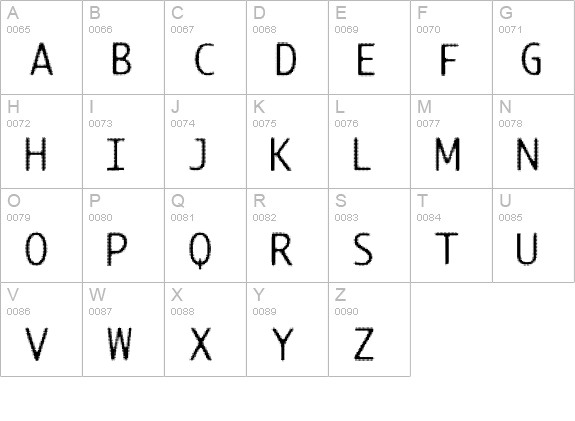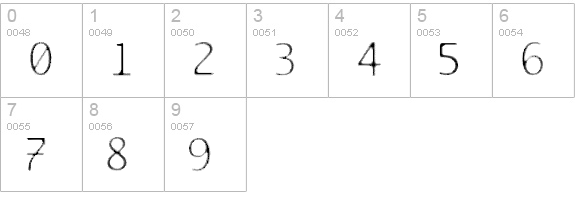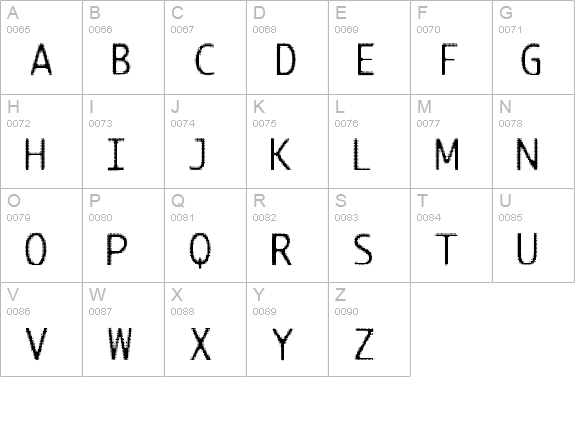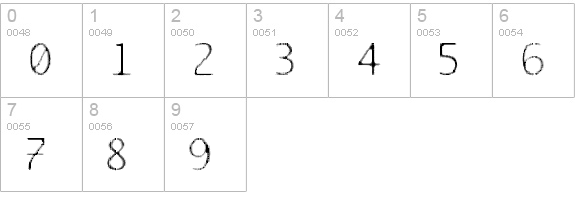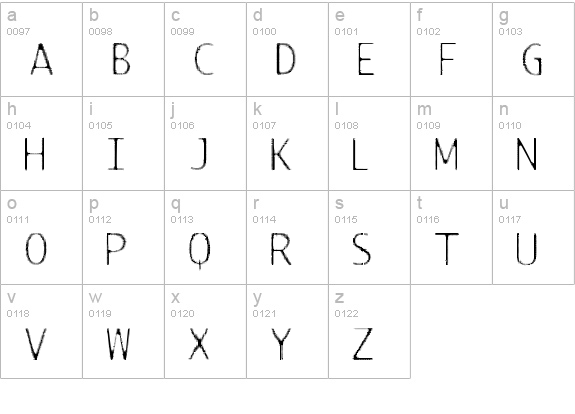
TECHNOIRE-ShockTreatment Font Details
TECHNOIRE-ShockTreatment font is a visually striking typeface that combines the elements of technology and modernity with a touch of edginess. Its bold and electrifying design captures the essence of a futuristic world, making it perfect for projects that require a strong and impactful visual presence. With its sharp and angular letterforms, TECHNOIRE-ShockTreatment font embodies a sense of energy and power, making it an ideal choice for headlines, posters, logos, and other graphic design projects that demand attention. The carefully crafted contours and meticulous detailing of this font ensure that every character stands out with a unique and captivating presence. One of the most remarkable aspects of TECHNOIRE-ShockTreatment font is that it is freely available to download at FontsMarket.com. This means that you can explore and unleash your creativity without any financial constraints. Whether you are a professional designer or an aspiring artist, this font offers you the opportunity to experiment and create freely, allowing your ideas to come to life in a truly impactful way. The versatility of TECHNOIRE-ShockTreatment font also extends to its compatibility with various design software and platforms. From Adobe Photoshop to Illustrator, from Microsoft Word to PowerPoint, this font seamlessly integrates with your favorite tools, ensuring a smooth and hassle-free design process. Embrace the power of TECHNOIRE-ShockTreatment font and let it transform your projects into captivating visual experiences. Its bold and electrifying aesthetic will make a lasting impression and leave your audience in awe. Download this free font from FontsMarket.com and unlock the limitless possibilities of your creative journey.